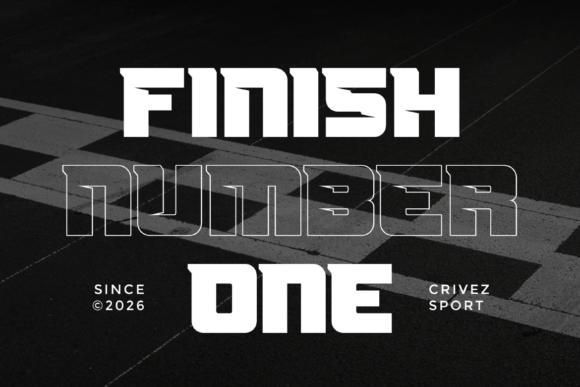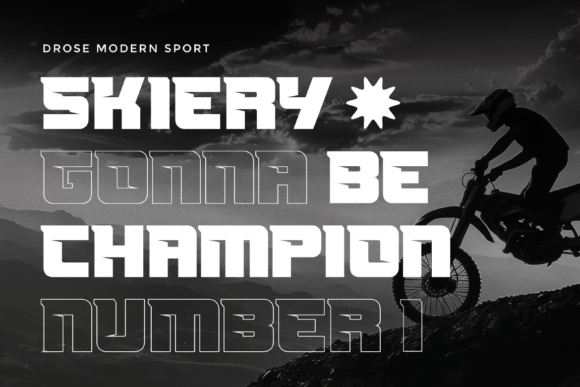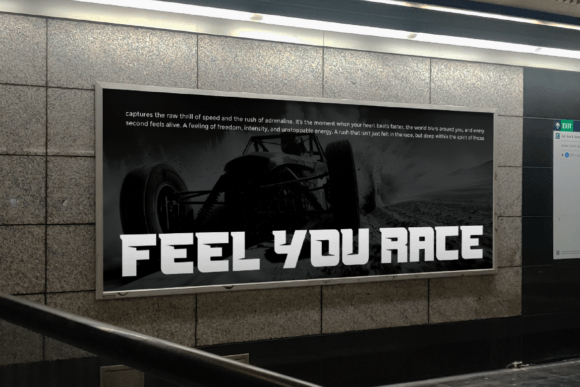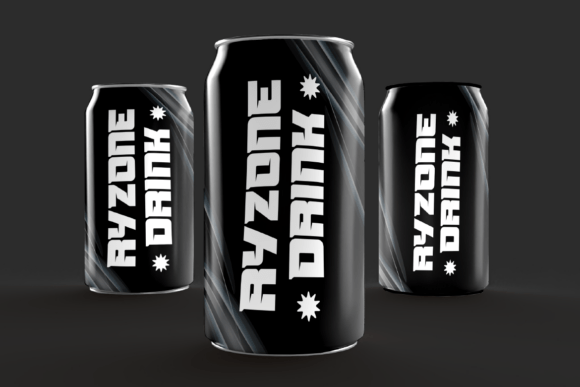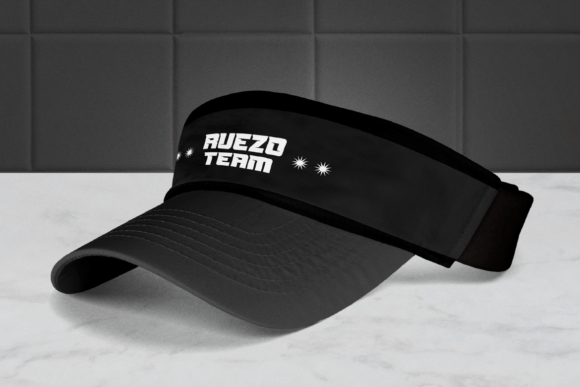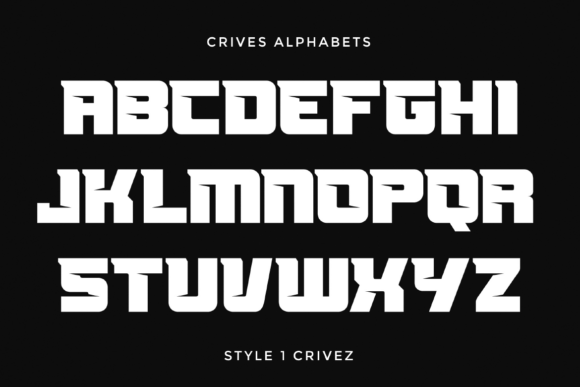
Introduction to Crivez Font
Push the limits of speed and power with Crivez, a high-octane modern sport display font designed for maximum velocity.
Featuring a heavy, wide-set structure with sharp, aggressive angles, Crivez captures the aerodynamic essence of professional racing and competitive sports This release includes 3 distinct styles, including a sleek solid and a technical outline version, making it the premier choice for automotive branding, esports logos, athletic apparel, and fitness-centered editorial layouts.